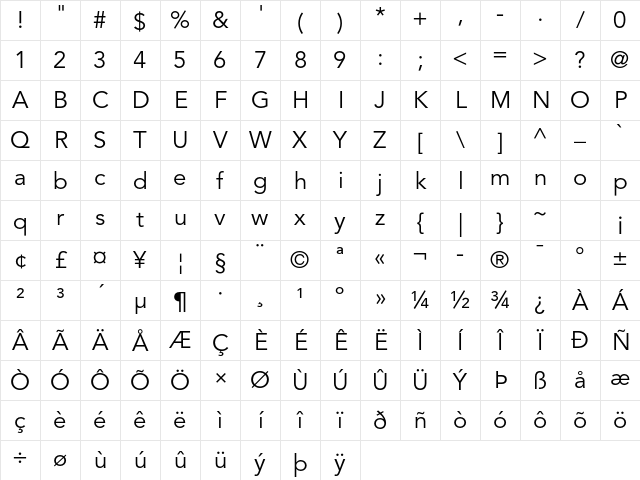
Avenir LT Std 45 Book
Style: 45 Book
Complete Avenir LT Std 45 Book glyph index. Displaying only characters natively supported by Avenir LT Std 45 Book font.
Design Context for Avenir LT Std
Avenir LT Std is a composed and adaptable typeface that performs quietly and consistently across a wide range of design contexts. Its slender proportions lend an understated elegance to any composition.